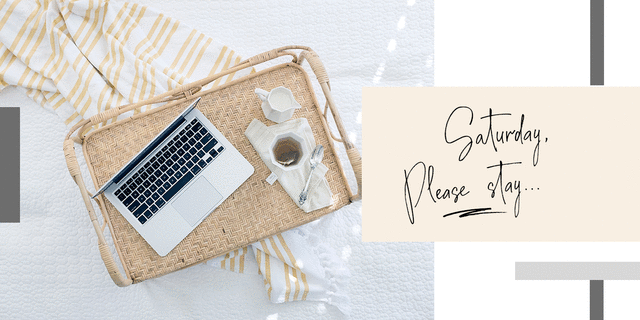
This font pair adds hand look style to your design projects be it logos, signatures, labels, packaging design, blog headlines. Also, it will look great in mugs, cards, gorgeous typographic designs, wedding stationery and much more.
Soul Adventures script includes a full set of uppercase 2 sets of lowercase letters, numerals, a large range of punctuation and 70 ligatures, giving realistic hand-lettered style. The Cyrillic part of the font contains the uppercase letters and lowercase letters and 20 ligatures.
Soul Adventures Symbols is a font with over 36 unique, hand-drawn elements and swashes can help to make your design more original. A different symbol is assigned to ever uppercase or lowercase standard character plus numbers 0-9 so you do not need graphics software just simply type the letter you need.
Multilingual support for 32 languages, including Cyrillic glyphs for Russian, Belorussian, Bulgarian, Ukrainian and Kazakh languages. The typeface was designed by Iryna Dvilyuk in 2021.